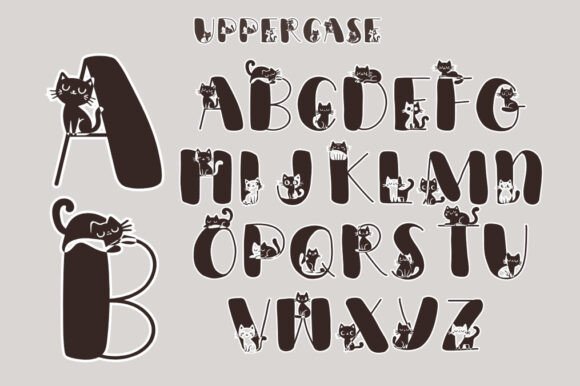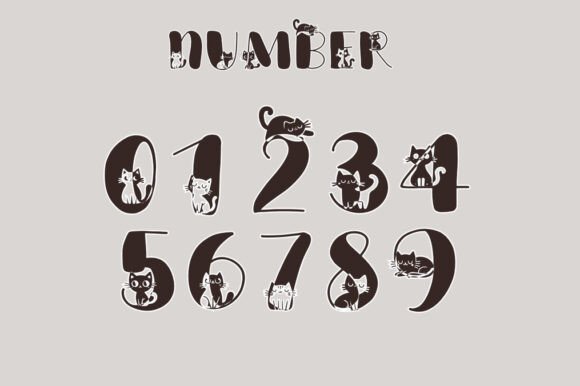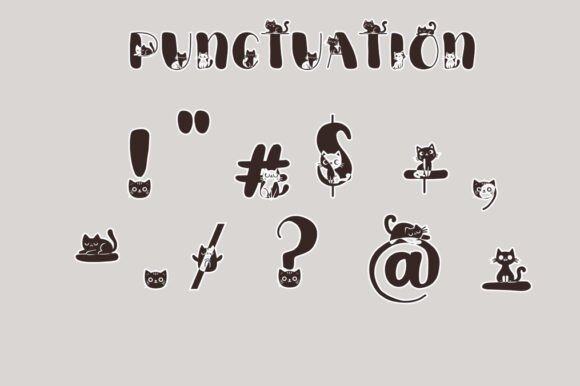
Meet Your New Feline Friend in Font Form
Do you remember that moment when you stumbled upon the perfect font for your cat-themed project? You spent hours browsing through endless options, and finally, you found it – the perfect blend of style and whimsy. For many designers, that moment is now with the introduction of the enchanting Cat Character Font.
This delightful typeface is not just a font; it’s an experience. Each alphabet is playfully fused with cute cat silhouettes, giving your messaging a lively, whimsical charm. Whether you’re designing a pet store logo, a fun book cover, or a heartwarming greeting card, the Cat Character Font is sure to infuse your projects with an irresistible, cozy cat appeal.
As a designer, you know how challenging it can be to find the perfect font that captures the essence of your brand or project. With the Cat Character Font, you’ll have an endless array of possibilities to create unique and captivating designs that will leave a lasting impression on your audience.
Cat Character Font Key Features
- Character Set: The font includes a unique set of 250+ cat-themed characters, including cat faces, paws, and other feline-inspired symbols, perfect for adding a touch of whimsy to your designs.
- Unique Characteristics: The Cat Character Font features a playful, hand-drawn style with intricate details and textures, giving it a charming and eye-catching feel.
Designer Review: Cat Character Font
I recently had the chance to work with the Cat Character Font, and I must say it’s a unique and quirky addition to any design project.
- Fun and playful vibe: This font perfectly captures the lighthearted and whimsical nature of cat lovers.
- High-quality design: The font is well-crafted, with clear lines and precise typography.
- Customization options: The font comes with a range of styles and variations, making it easy to tailor to your specific design needs.
- Limited legibility: At smaller font sizes, the Cat Character Font can become difficult to read, which may limit its use in certain contexts.
- Not ideal for formal content: Due to its playful nature, this font may not be the best choice for formal or professional content.
Overall, I think the Cat Character Font is a great choice for designers looking to add a touch of personality to their work. While it may have some limitations, its unique charm and customization options make it a valuable addition to any design toolkit.
The Cat Character Font is ideal for:
– Children’s book illustrations
– Cartoon-style graphics
– Whimsical marketing materials
– Personalized gifts and stationery
To get the most out of the Cat Character Font, try combining it with other playful fonts or graphics, such as emojis or illustrations. Experiment with different font sizes and styles to create visual interest. Use the font in creative ways, such as creating custom titles or headings.